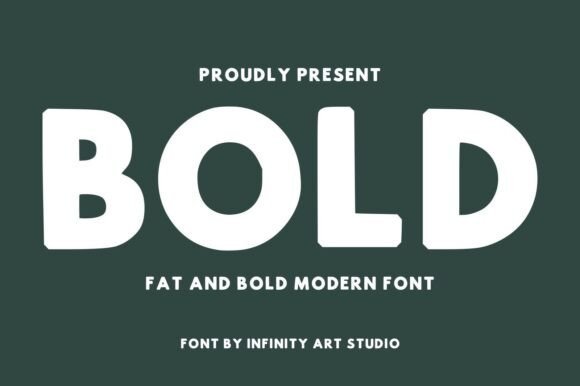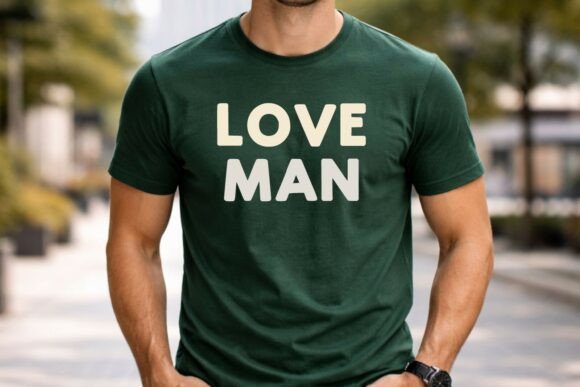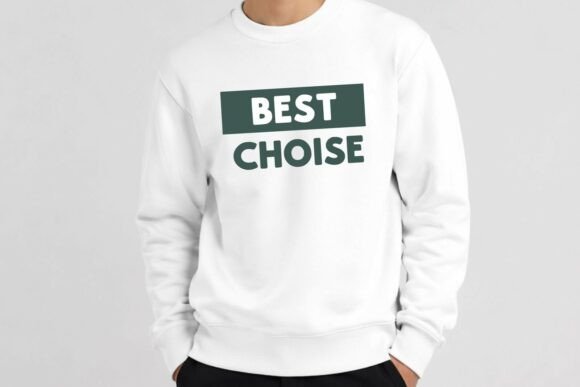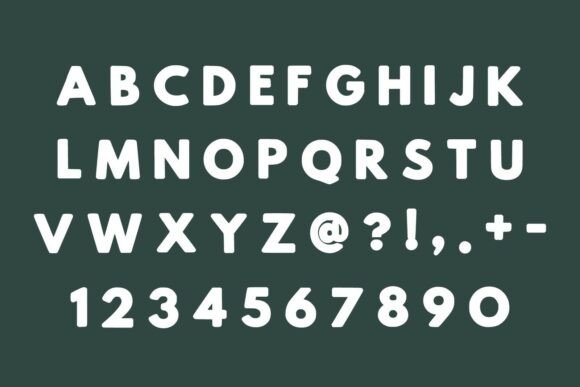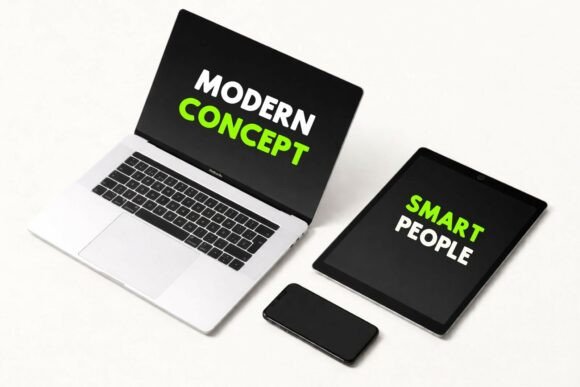
The Power of Typography: Unleashing the Bold Font
Have you ever stared at a blank page, struggling to come up with the perfect headline to capture your audience’s attention? You’re not alone. We’ve all been there, searching for that one font that screams ‘notice me!’ and makes our design pop. And that’s exactly where Bold Font comes in – a game-changing typeface designed to make your words stand out in a crowded space.
Bold Font is more than just a font; it’s a statement. With its modern and minimal aesthetic, it’s perfect for designers who want to add a touch of confidence and sophistication to their work. Whether you’re creating a logo, poster, or social media graphic, Bold Font is the perfect companion to help you deliver a bold and contemporary look that leaves a lasting impression.
Bold Font Key Features
- Unique Character Set: Features a comprehensive character set, including Latin, Cyrillic, and Greek alphabets, as well as a range of symbols and ligatures.
- Weight and Style Options: Available in multiple weights (Light, Regular, Bold, Black) and styles (Italic, Oblique), providing designers with flexibility and creative freedom.
Bold Font Review
Overall, I’d say Bold Font is a solid choice for designers looking to add some weight to their text. Here are the things that really shine:
- ✨ High customization options – From font sizes to line heights, Bold Font gives you the flexibility to tailor your text to fit any design.
- ✨ Easy to use – With a user-friendly interface, you can quickly select and apply Bold Font to your text without any hassle.
However, there are a few areas where Bold Font falls short:
- ⚠️ Limited font styles – While Bold Font offers a decent range of font styles, it’s not as extensive as some other options on the market.
Overall, I’d give Bold Font 4 out of 5 stars. While it’s not perfect, it’s a reliable and versatile font that can add some serious impact to your designs.
Bold font is commonly used to draw attention to important information, highlight key points, or create emphasis. It’s also used to create headings, titles, and subtitles in documents, presentations, and designs.
Tips for Getting the Most Out of Bold Font
Use bold font sparingly to avoid overwhelming the reader or viewer. Balance bold font with regular font to create visual interest. Use bold font consistently throughout your design to create a cohesive look.
Alternatives to Bold Font for Designers
1. Weight Font
Weight font is similar to bold font, but it provides more flexibility in terms of weight, from light to extra bold. It is ideal for creating subtle typography variations and adding emphasis without being too overpowering.
Compared to bold font, weight font offers more nuance and allows designers to fine-tune the typography to better suit their design.
2. Semibold Font
Semibold font is a compromise between regular and bold font, offering a middle ground for emphasis without being too overpowering. It is suitable for headings and titles where a bold font might be too dominant.
Compared to bold font, semibold font provides a more subtle approach to emphasis, making it ideal for designs that require a balance between clarity and restraint.
How does bold font affect accessibility?
Bold font can be beneficial for accessibility, as it provides visual contrast and makes text more readable for users with visual impairments. However, be mindful of the font size and weight, as bold font can be difficult to read for users with certain visual impairments. Use a clear and readable font, and ensure that the text size is sufficient for users with visual impairments.